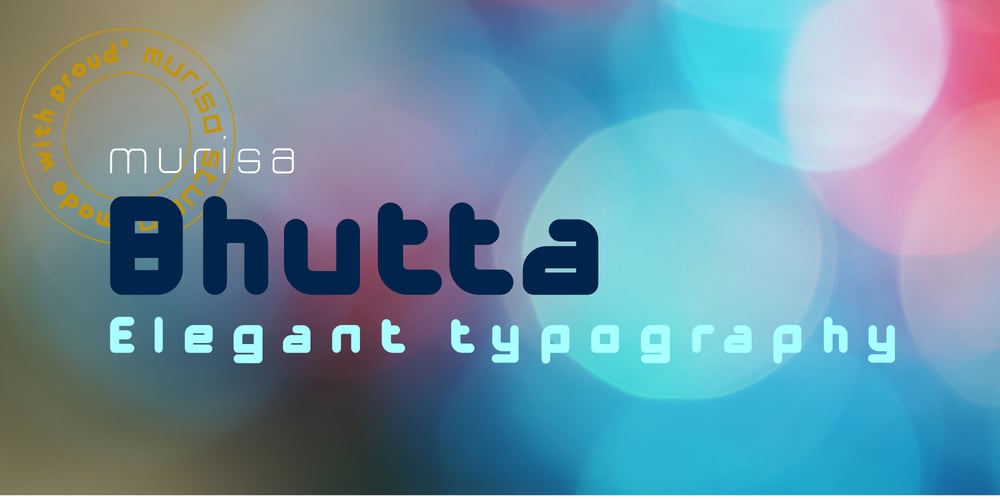
Murisa Bhutta
Murisa Bhutta font
Murisa Bhutta Font Family was designed by Lili Sadili and published by Murisa Studio. Murisa Bhutta contains 2 styles and family package options. hello, today we want to present our newest font that you will love, its name is Murisa Bhutta. This font is very unique because it has a different shape from the others, this adds interesting characteristics to the user. This font also has better kerning, and of course wider support for users in Eastern Europe has also been provided. Use this font for your logo and promotions and get bigger profits. Good luck.